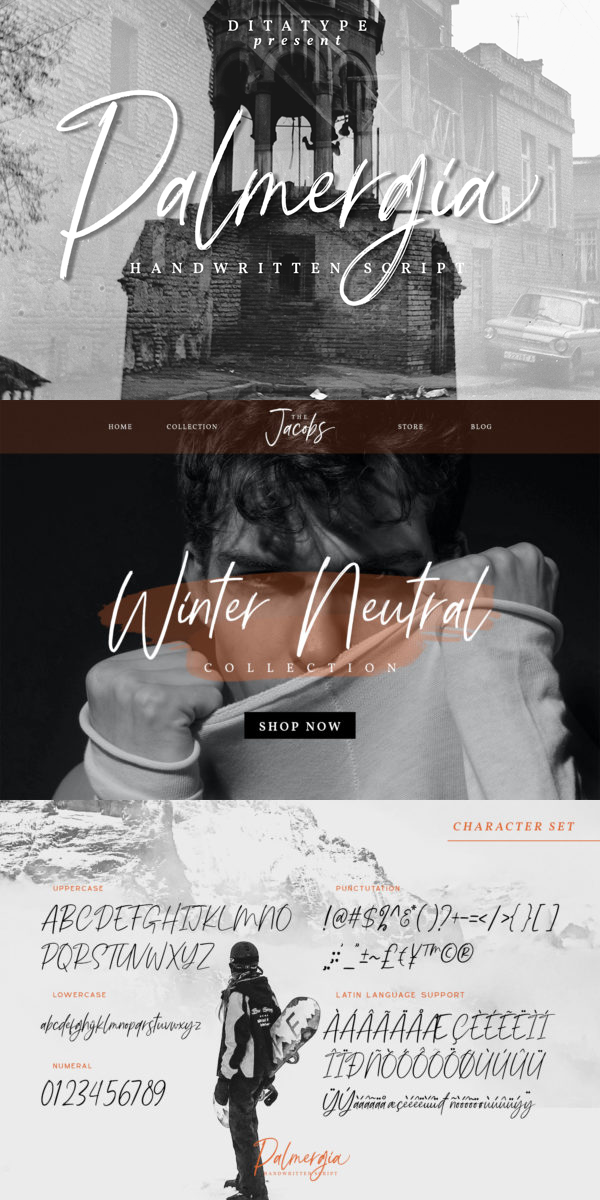
Palmergia Font
About Palmergia
Palmergia is a modern handwritten font. With a classy and natural handwritten style, it brings a classy and chic typeface. Palmergia is best used for branding, logotype, and quotes.
– Beautiful Ligatures
– Stylistics Set